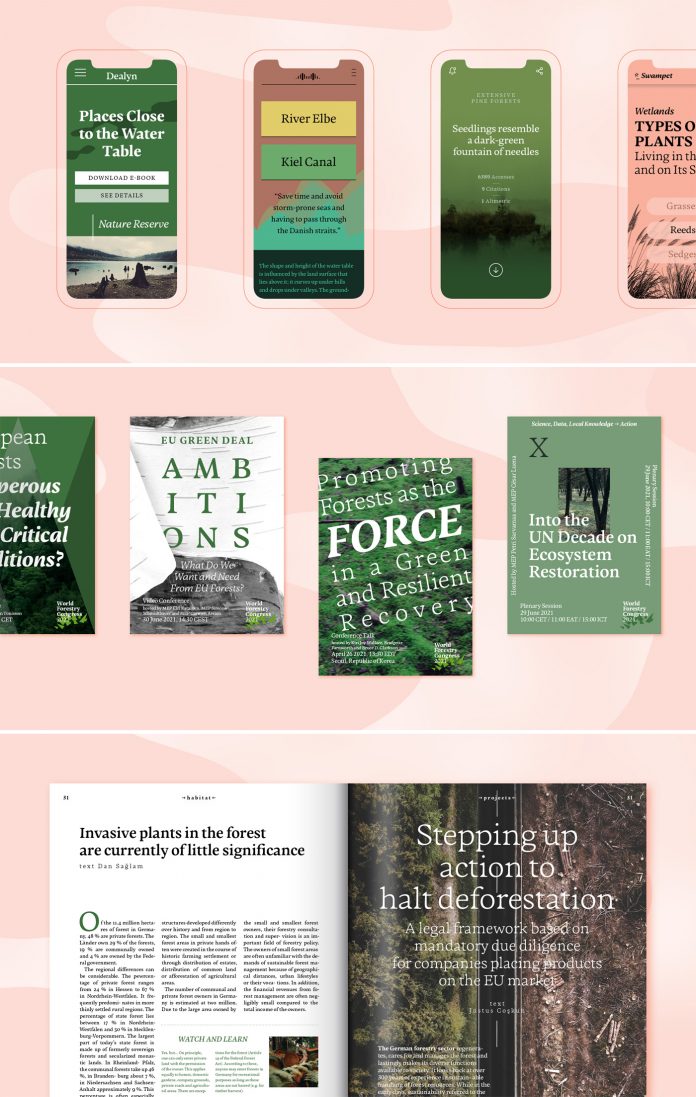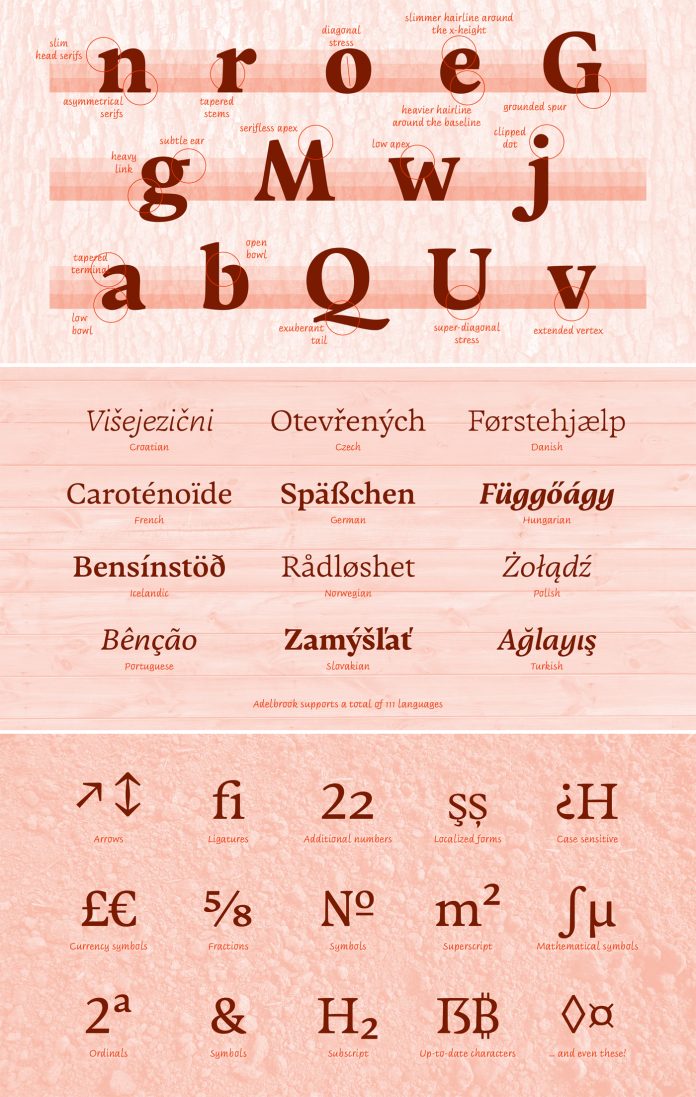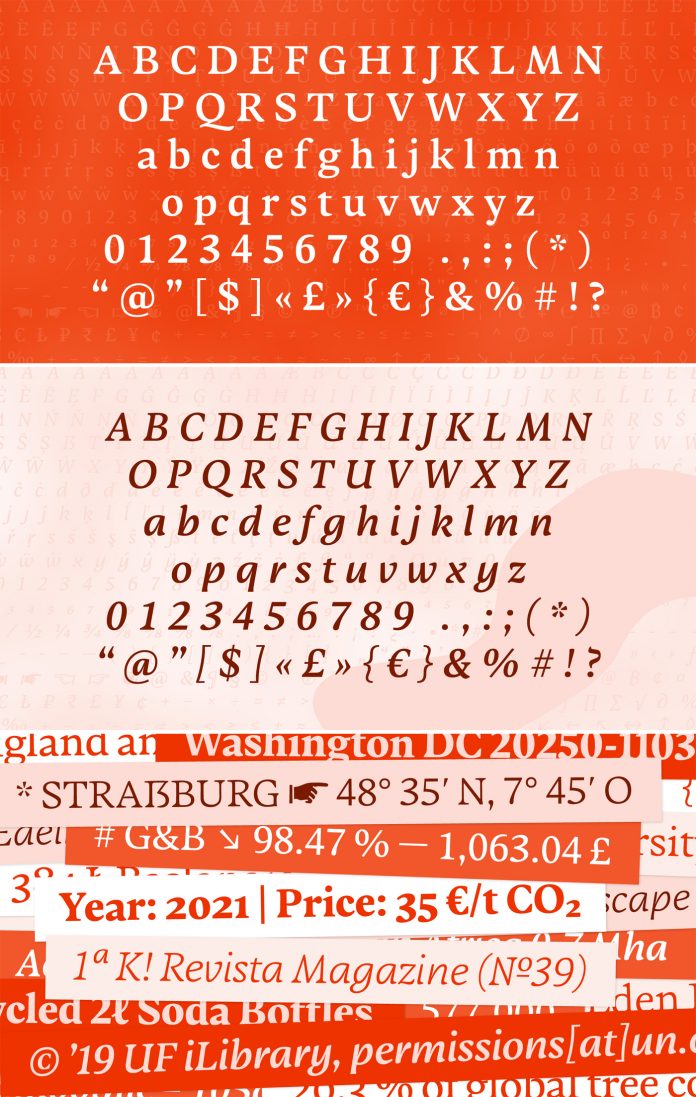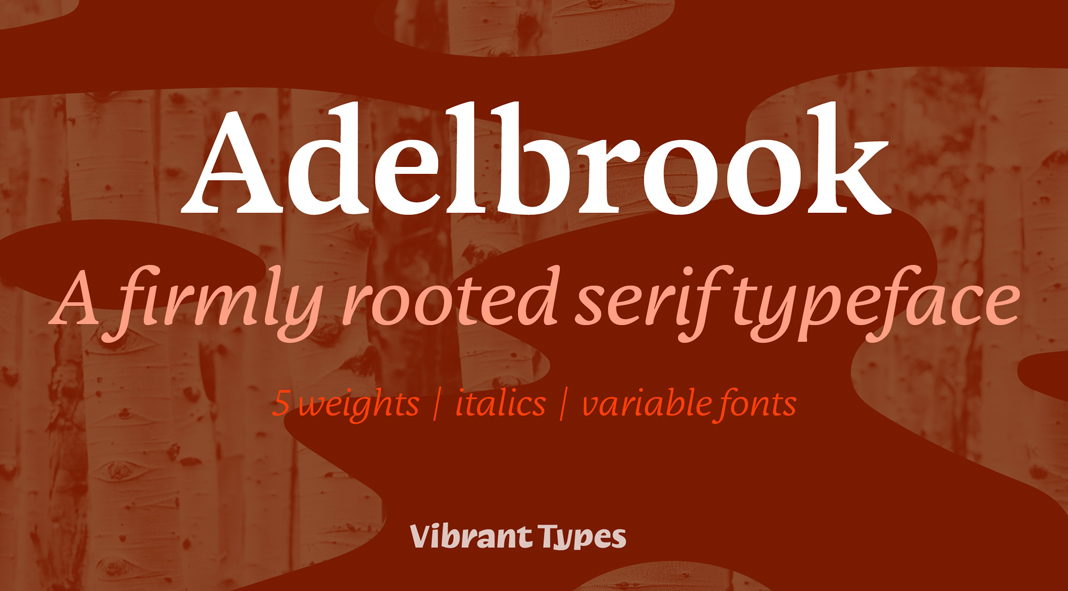
Adelbrook, a dynamic serif font family that keeps calm in every situation.
Just two weeks ago, type designer Philip Lammert released his fourth font family, Adelbrook. It’s a dynamic serif typeface that enriches every text with the archaic structure of humanist type design. Adelbrook’s characters have been masterfully arranged in a harmonious rhythm with a dynamic stroke, asymmetric serifs, and stems that lean in the direction of reading.
The Adelbrook font family comes with five weights including matching italics. In addition, the typeface is equipped with a variable font – also available as an upright and italic version. The family is also packed with plenty of OpenType features. Just click on one of the following links to learn more.